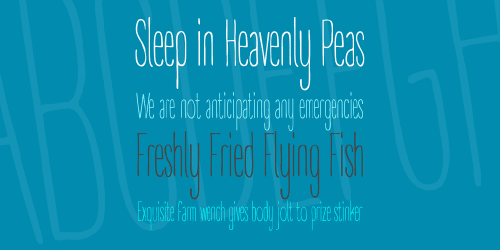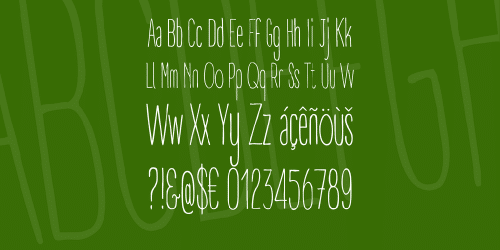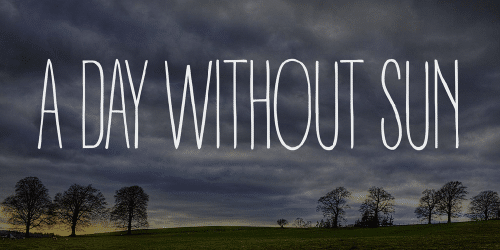
A Day Without Sun is an ultra-condensed version of Panforte, created by Cosimo Lorenzo Pancini based on the design of Debora Manetti for Panforte.
Hand drawn in easy big strokes, its an extremely condensed typeface that allows you to typeset text in faux-handamade fashion, with the subtle elegance of vintage handlettered menus.
Lovers of world cuisine will be delighted to discover that it supports over forty languages using the latin alphabet, spiced with hand-picked diacritics and comes also with a tasty side dish of greek and cyrillic characters.Its grungy, handmade characteristics are visible at medium and high point sizes but do not impact the effect of the font when set in text.
A Day Without Sun open type features include small case characters, oldstyle numerals and a series of ligatures that help keeping the distinctive handmade look (they can be switched off by unchecking the “standard ligatures” option in your design software). A Day Without Sun includes some special ligature dingbats, accessible by typing the corresponding sequence of characters: please refer to the specimen for a guide to typing.